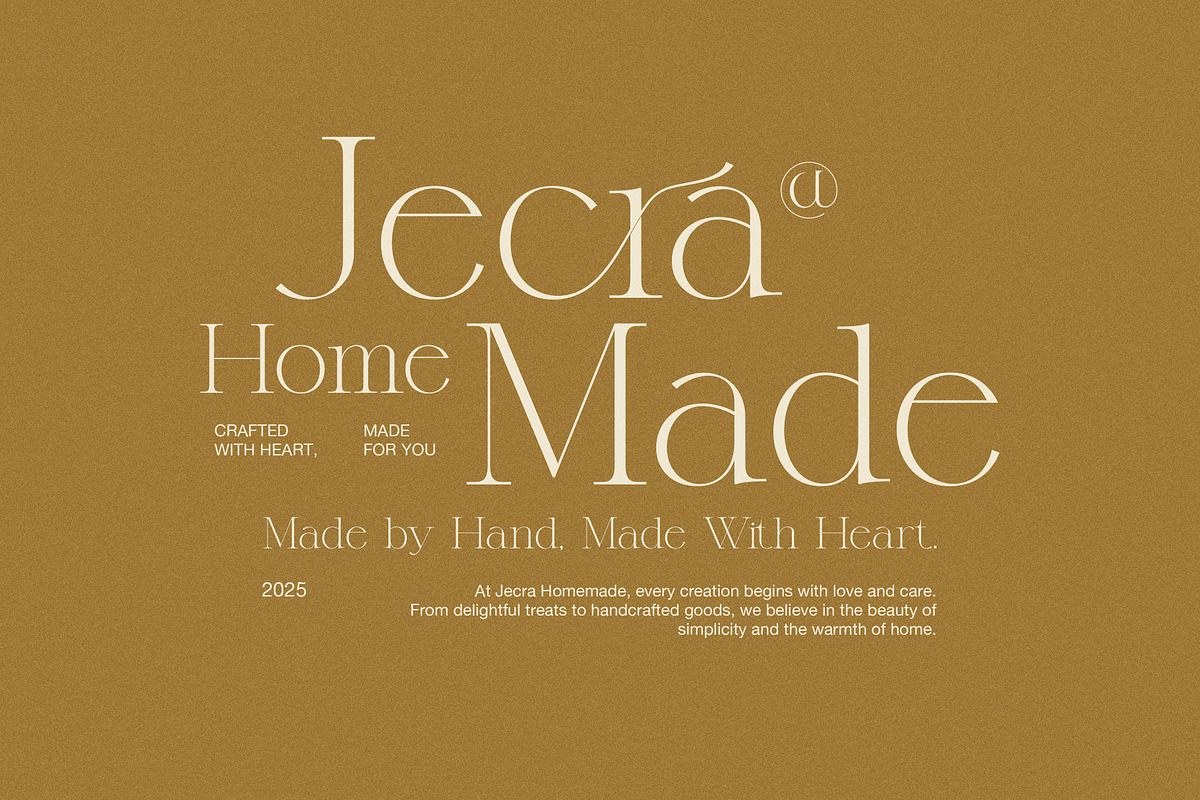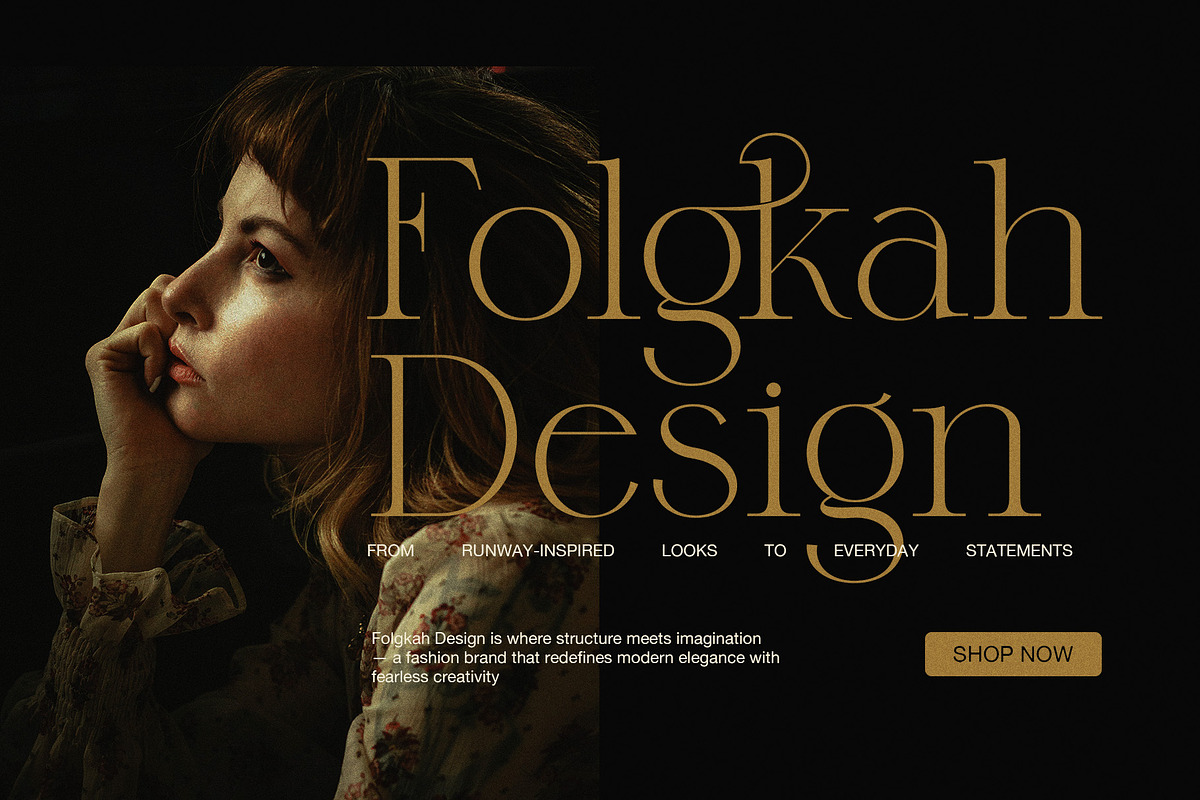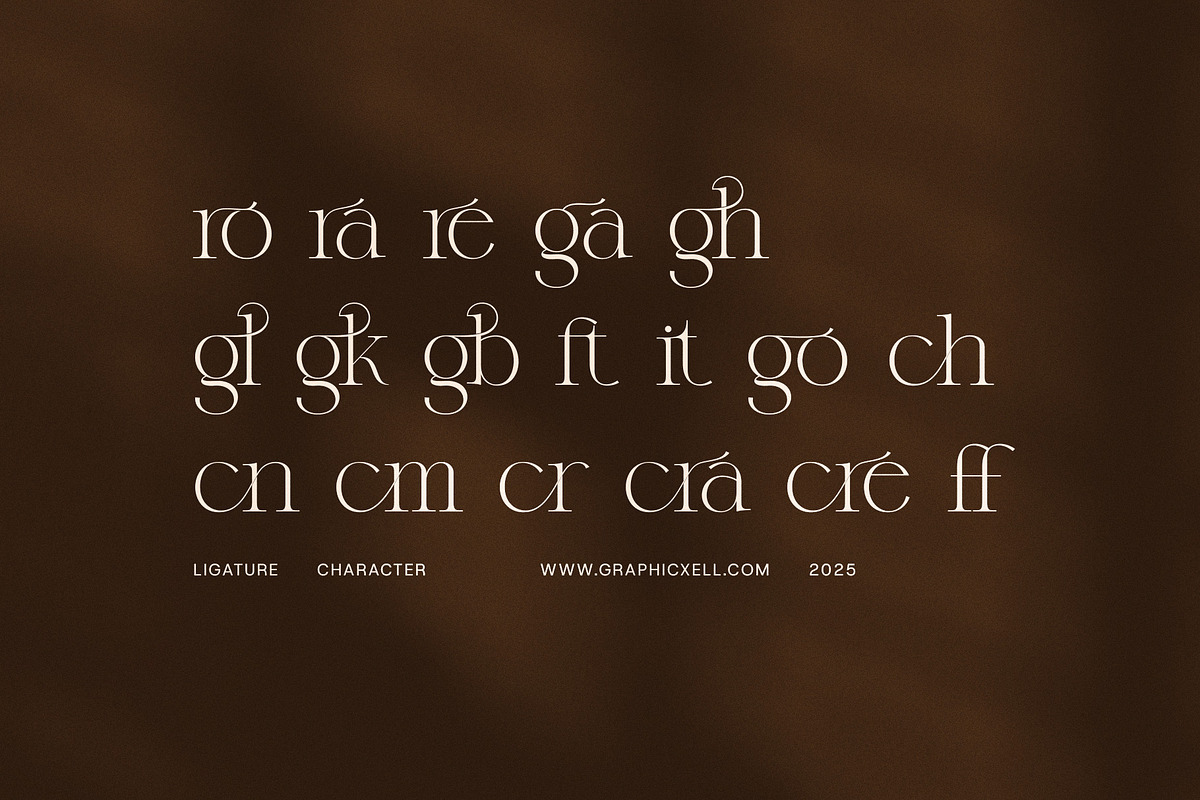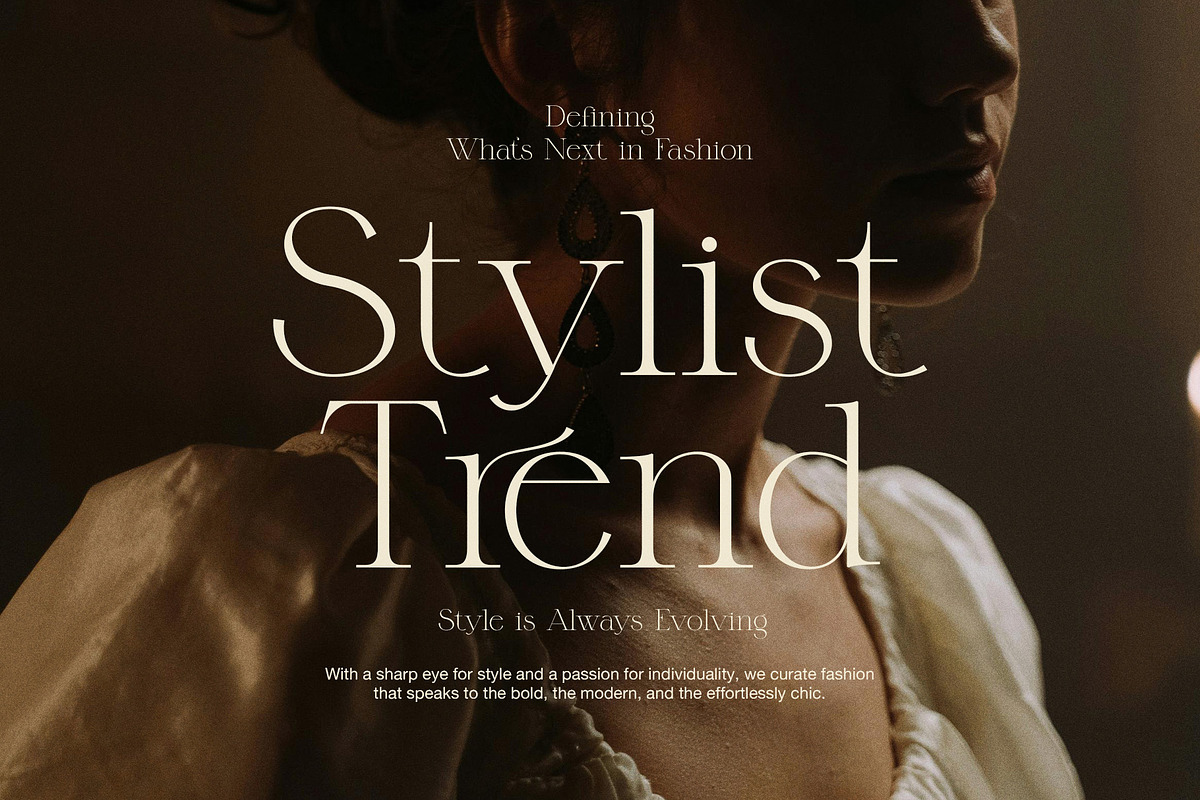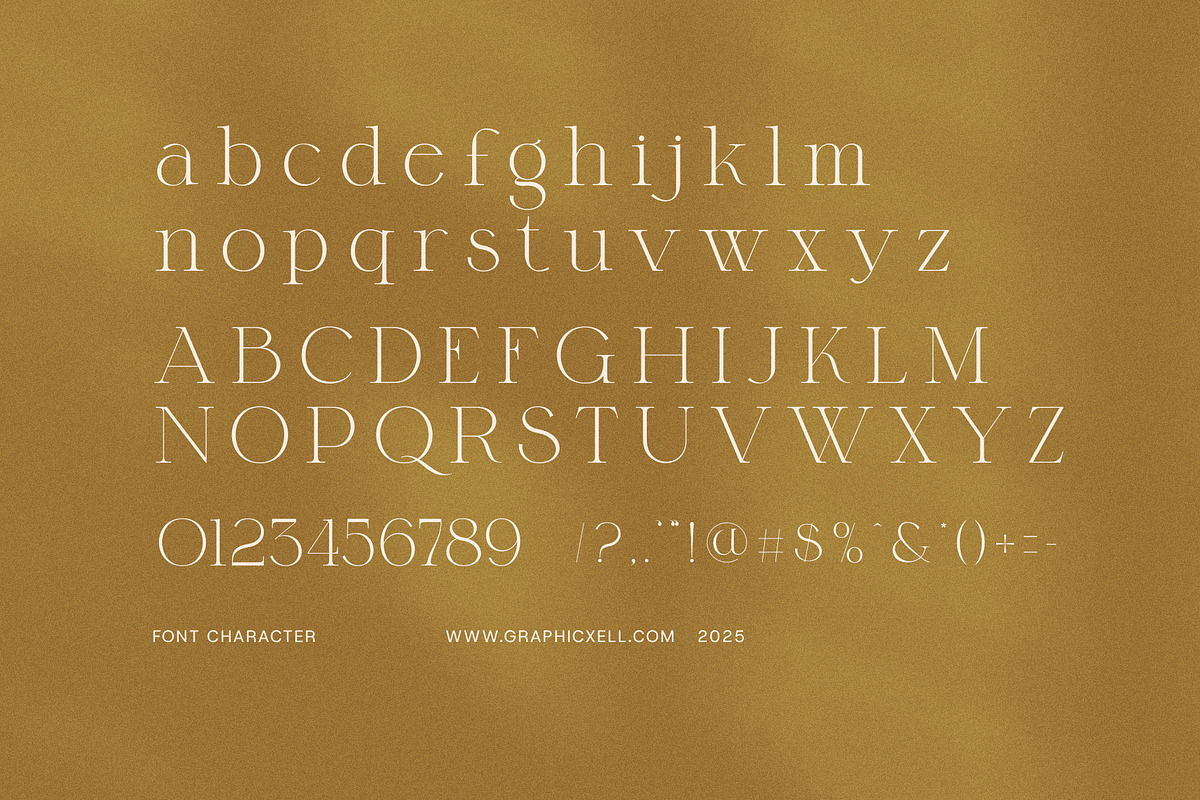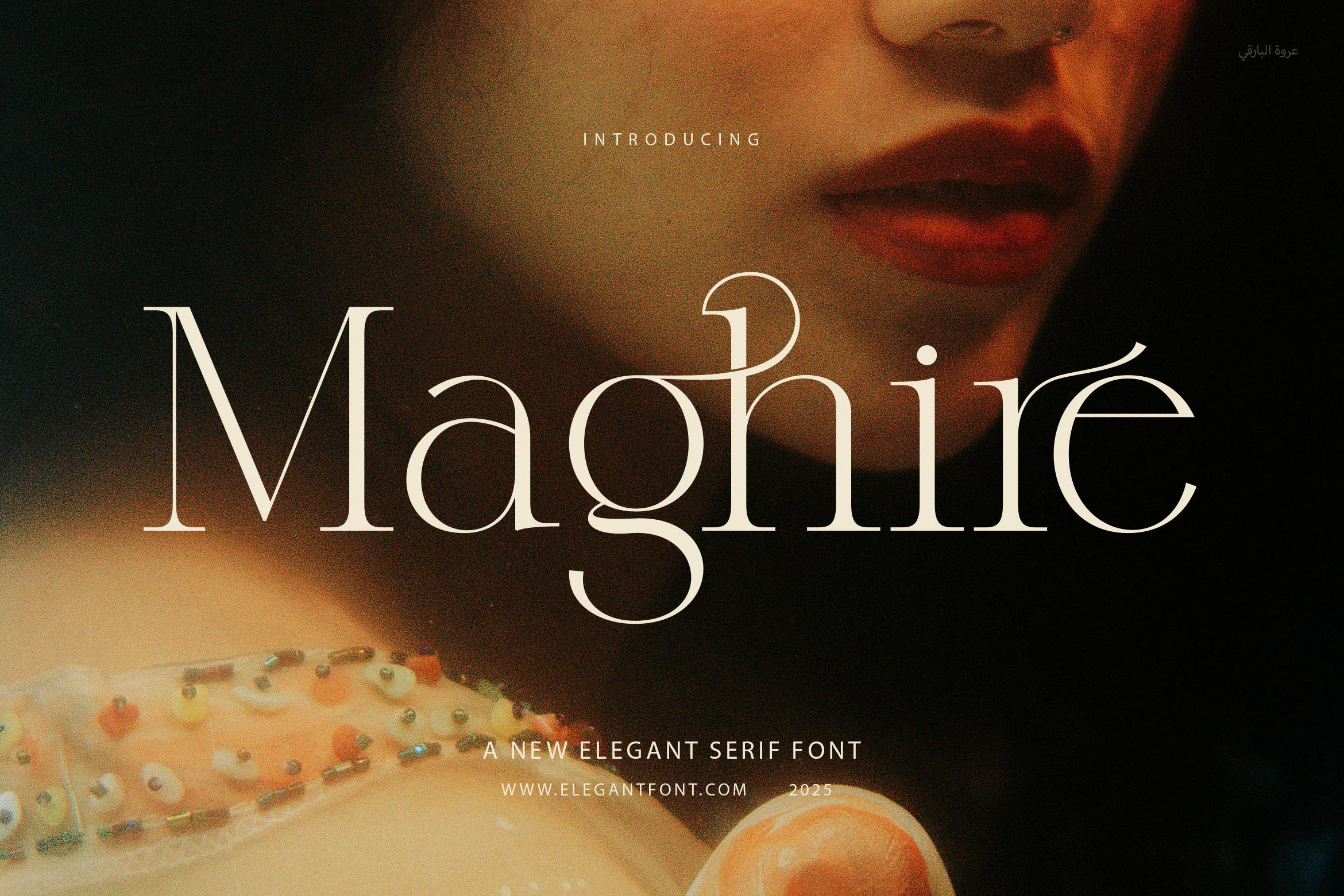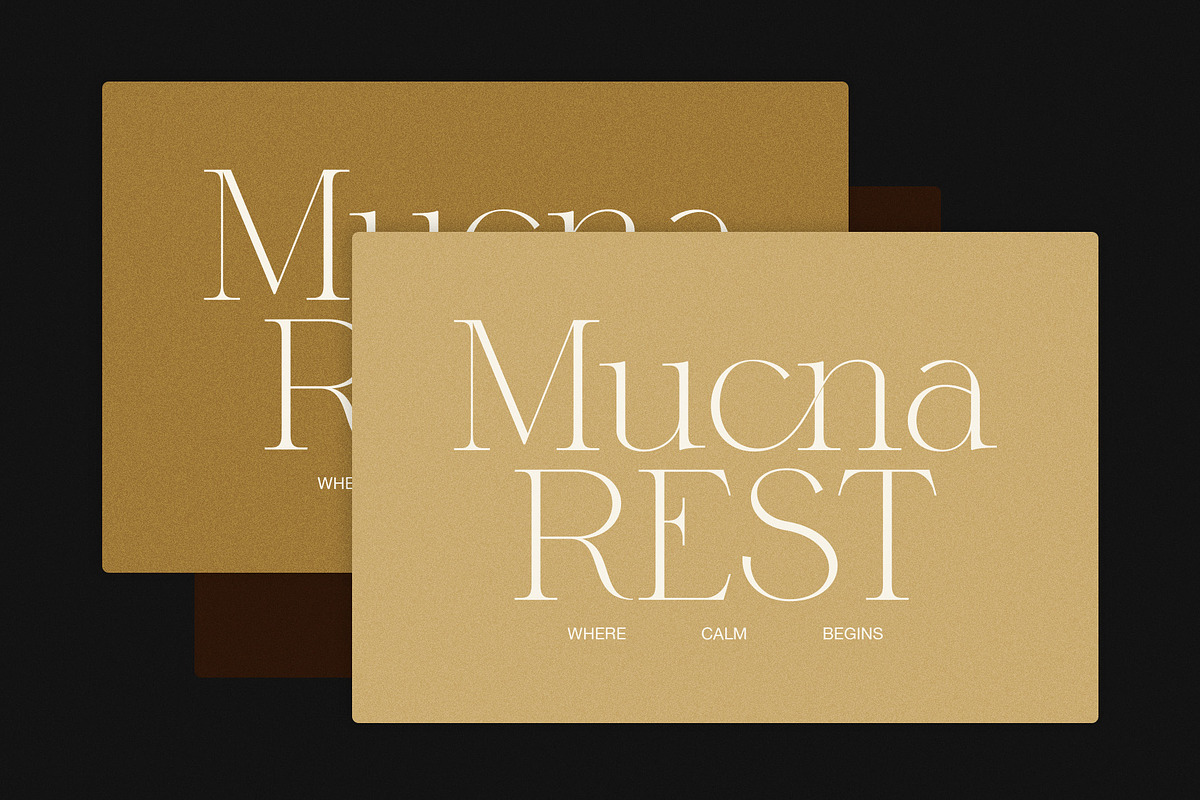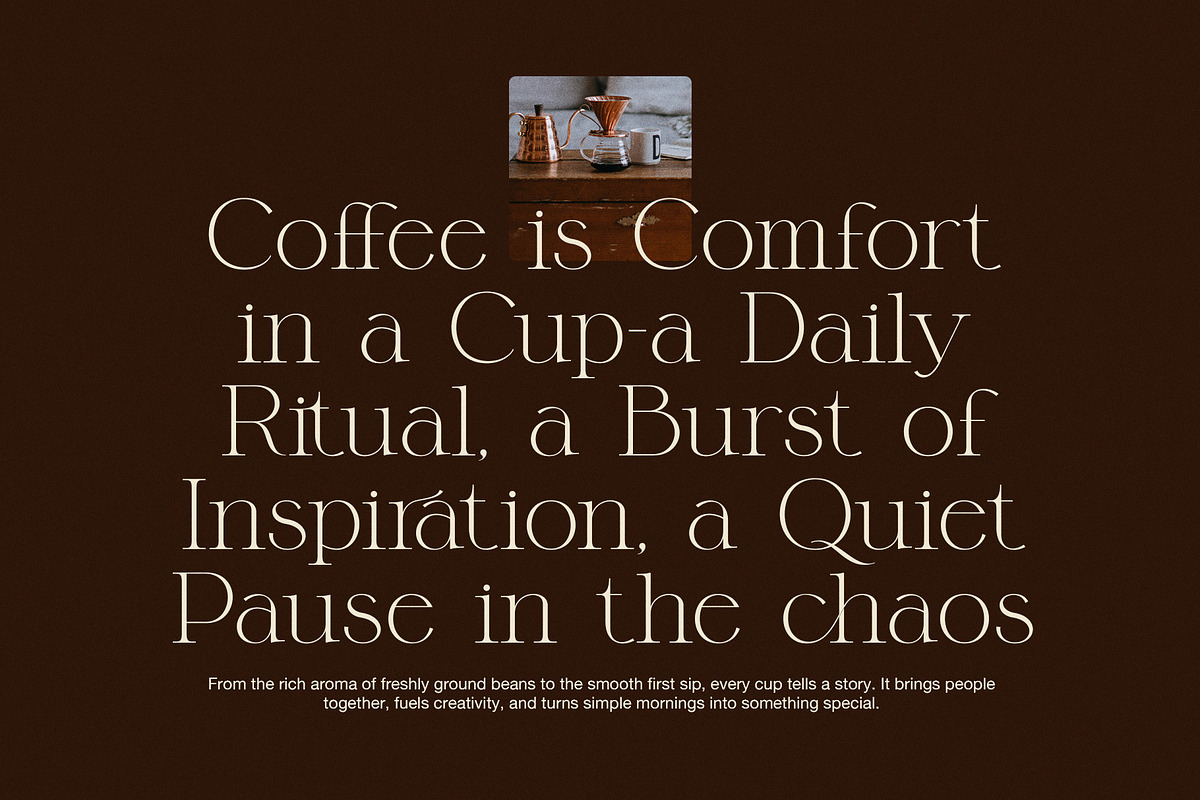
Maghire Elegant Serif Font
Maghire – Elegant Serif Font is a modern and stylish typeface that adds class to any design. With clean lines and balanced shapes, it gives a bold yet graceful look to your work. Every letter is carefully designed to bring a touch of charm and polish to your brand or project.
This font stands out because it blends timeless elegance with modern simplicity. It includes unique ligatures that add character to your text while keeping it clear and easy to read. As a result, Maghire is perfect for logos, branding, websites, magazines, packaging, and more.
If you're creating a logo, launching a product, or designing a fashion label, Maghire fits right in. It also works great for business cards, wedding invites, blog headers, or social media graphics. No matter the project, this font helps your design feel professional and high-end.
What makes Maghire even better is its flexibility. It’s easy to pair with other fonts and works well in both large headings and smaller text. Thanks to its neat layout and elegant ligatures, your work will always look polished and consistent.
Whether you're a designer, brand owner, or creative professional, Maghire gives you a font that’s both useful and beautiful. It’s a strong choice for anyone who wants to make a lasting impression.
✨ Why Choose Maghire:
Elegant and modern serif design
Clean, readable letterforms with beautiful balance
Stylish ligatures for a refined look
Works well for branding, logos, and packaging
Great for websites, magazines, and printed layouts
Suitable for fashion, lifestyle, and boutique brands
Easy to use across different design platforms
Add a timeless, elegant feel to your next project with Maghire – a serif font that speaks with style.